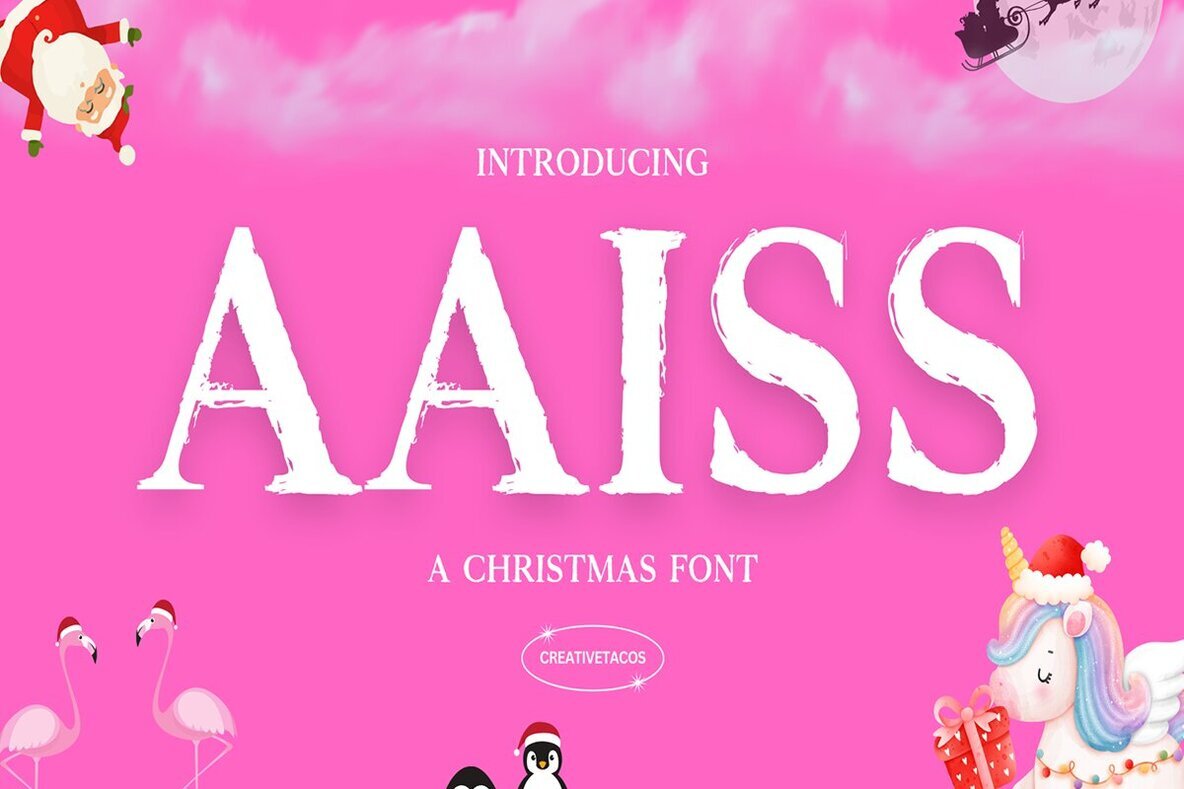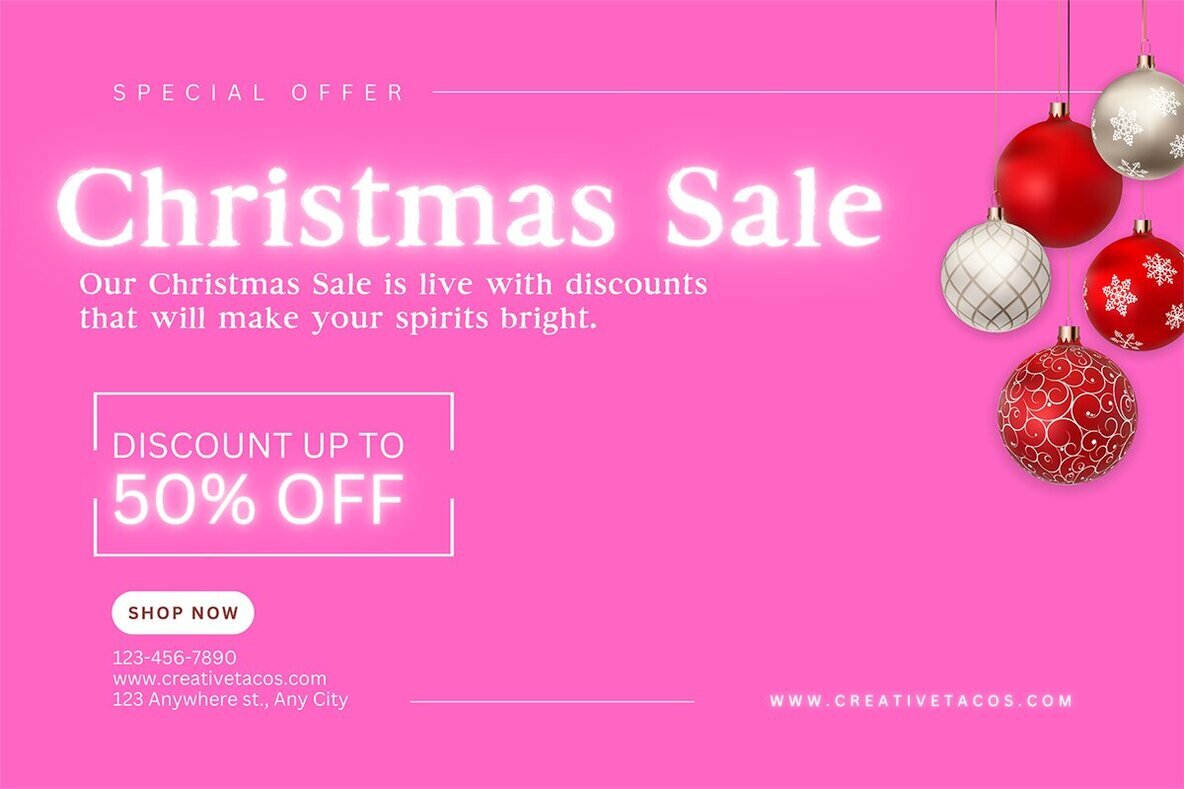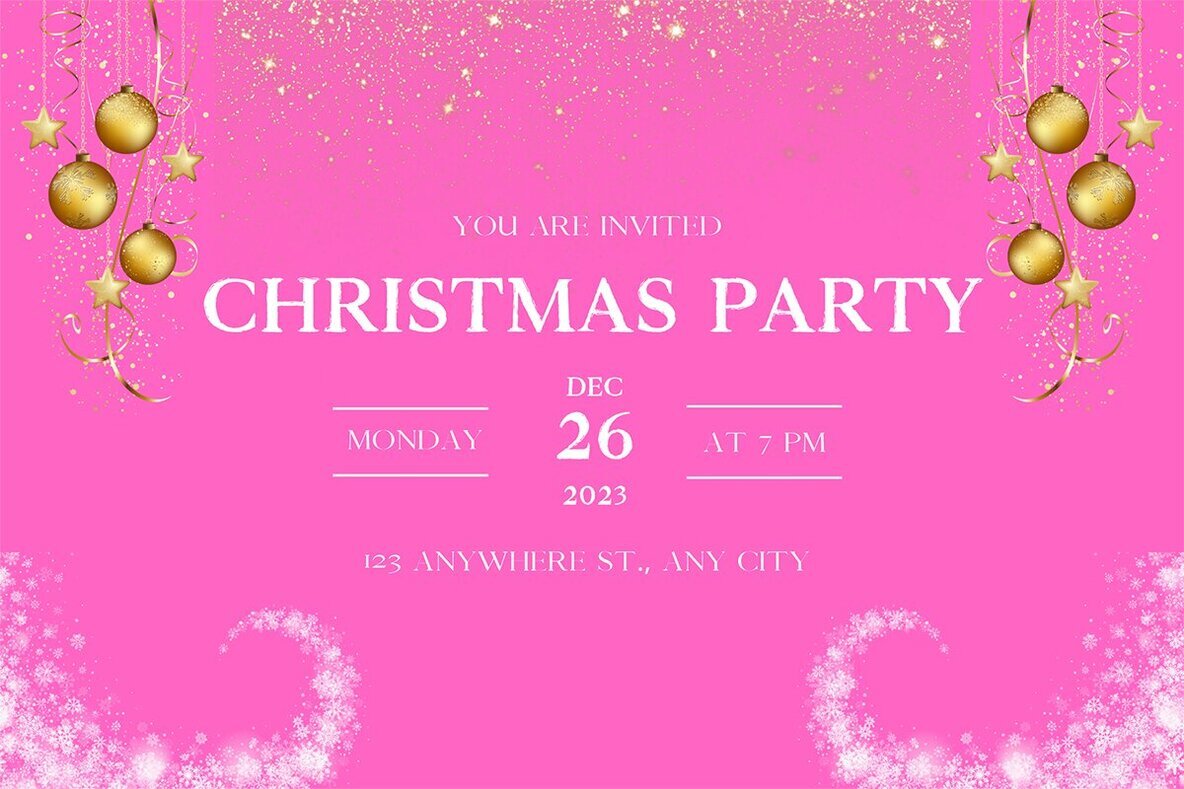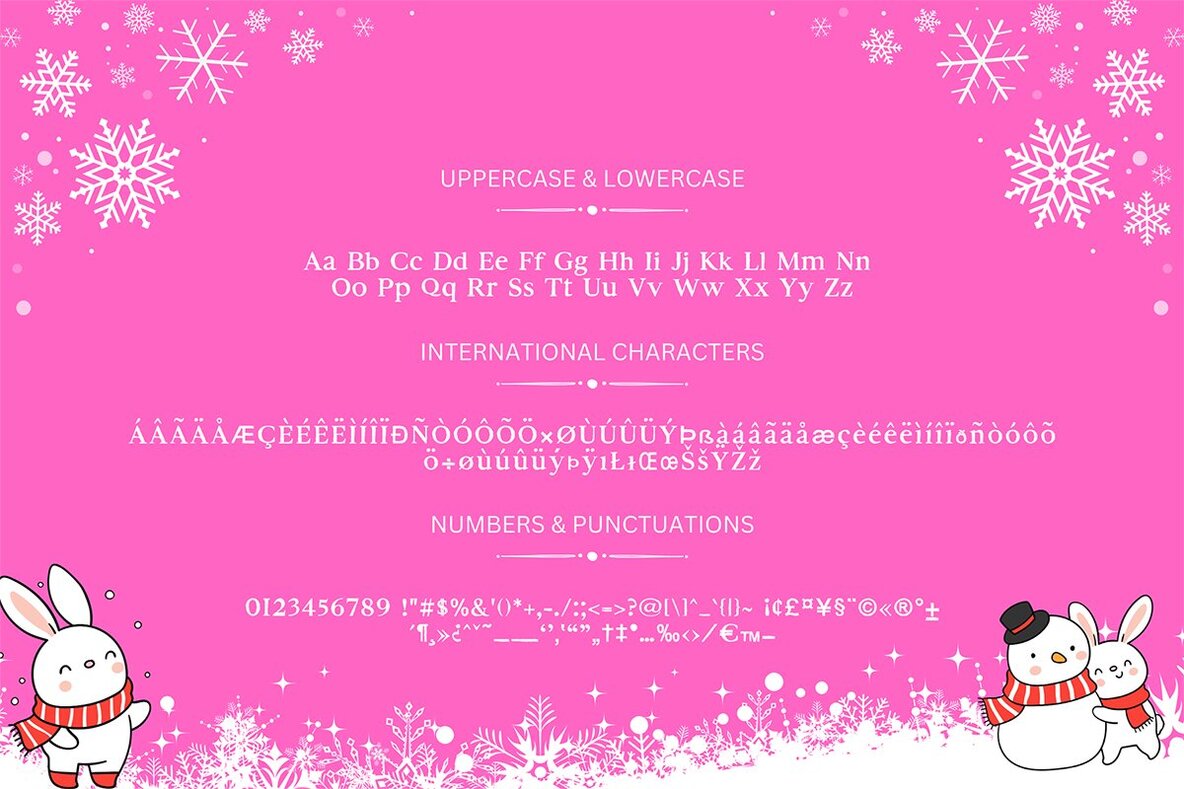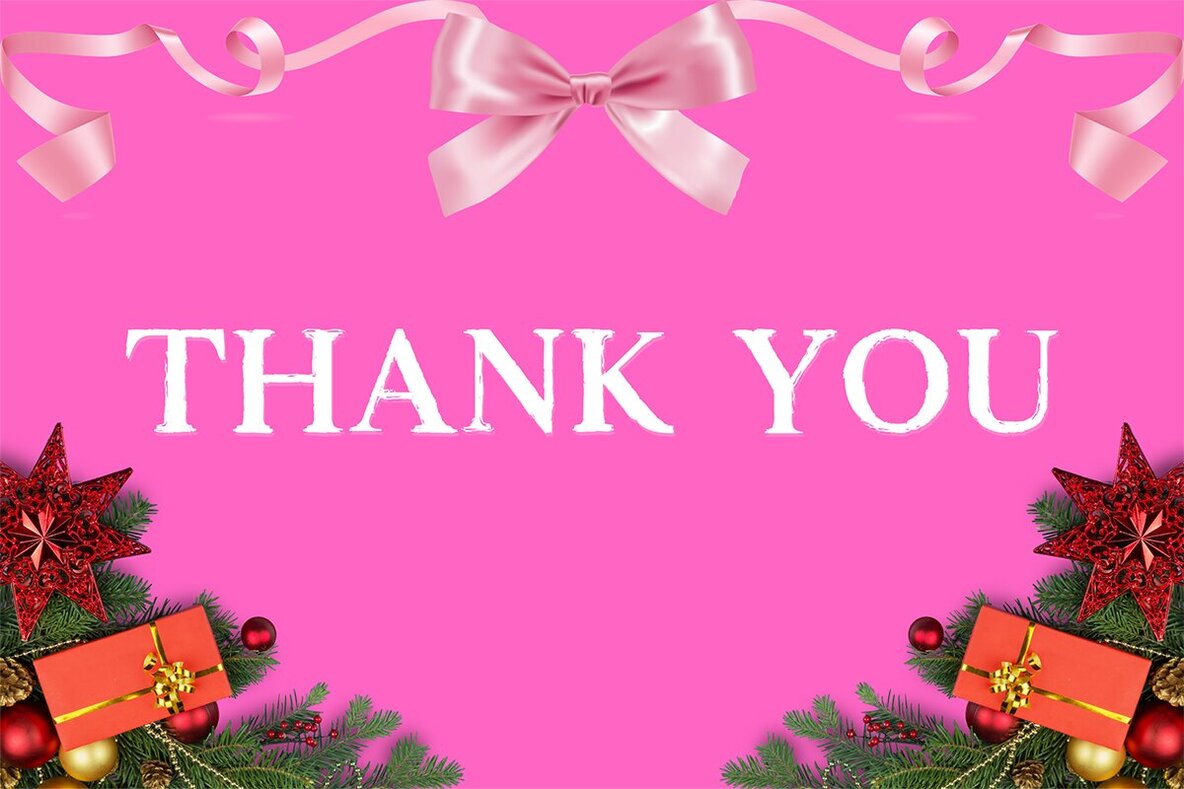
Aaiss Font
Aaiss Regular
Aaiss Christmas Font brings a festive and decorative touch to your holiday design projects. With its bold and playful style, it is perfect for eye-catching headlines, greeting cards, and party invitations. The font's cheerful aesthetic immediately infuses a festive atmosphere, making it ideal for both print and digital platforms.
The font includes uppercase and lowercase letters, numbers, punctuation, and symbols. It also supports multiple languages, ensuring you can create polished and consistent designs. Use Aaiss Christmas Font to add a joyful and festive touch to your design projects this holiday season.